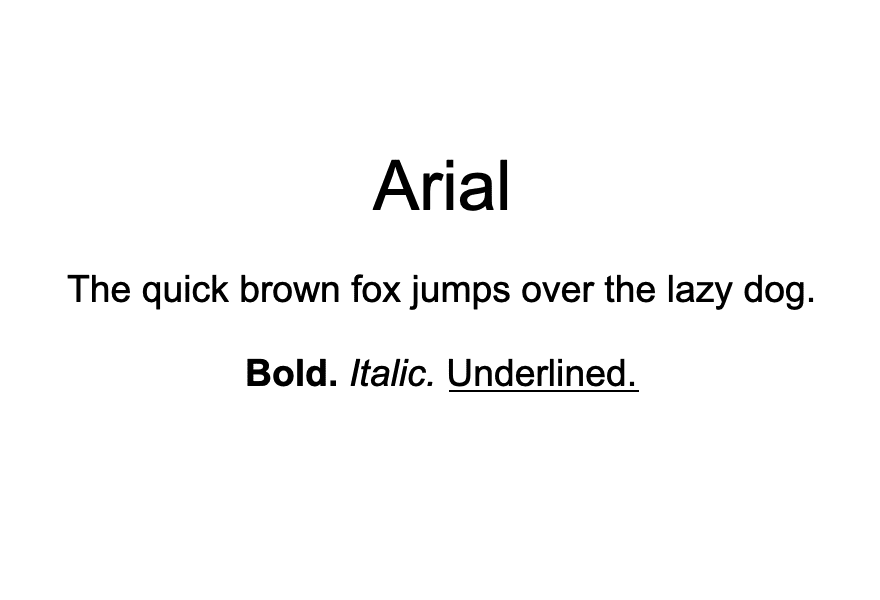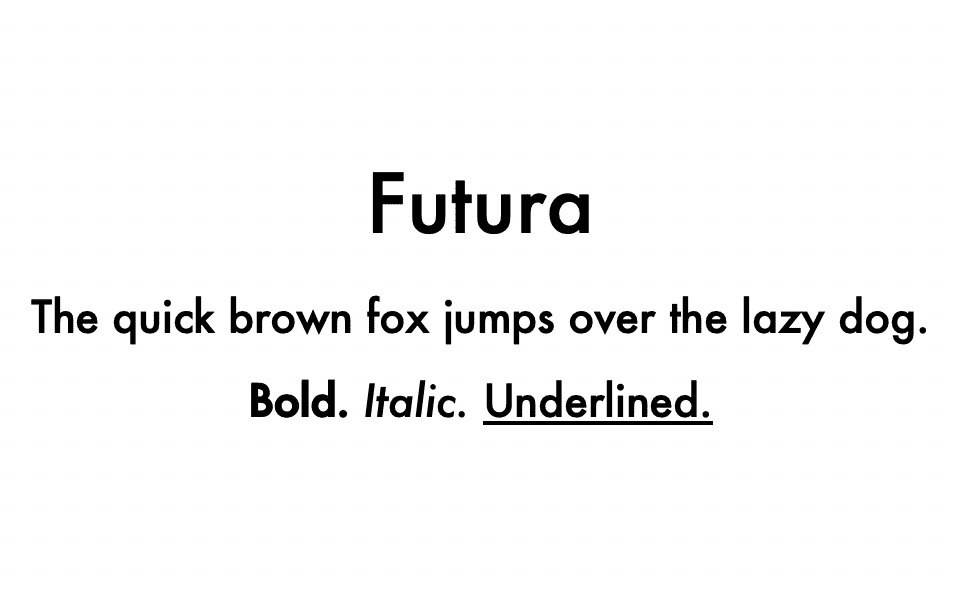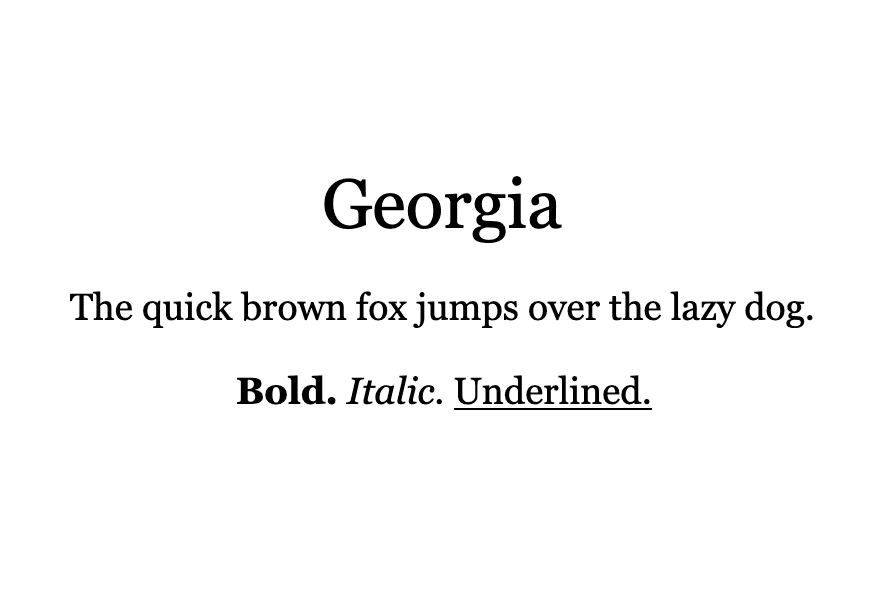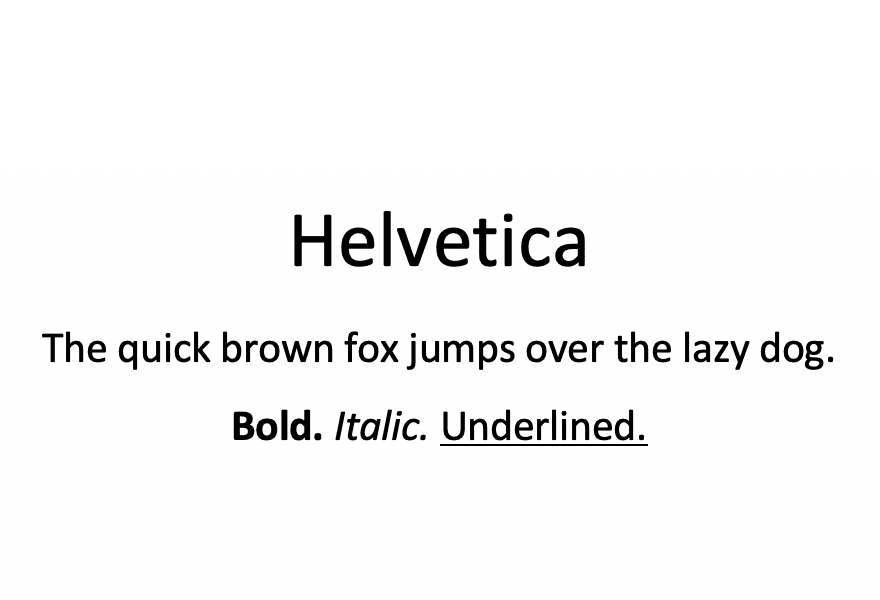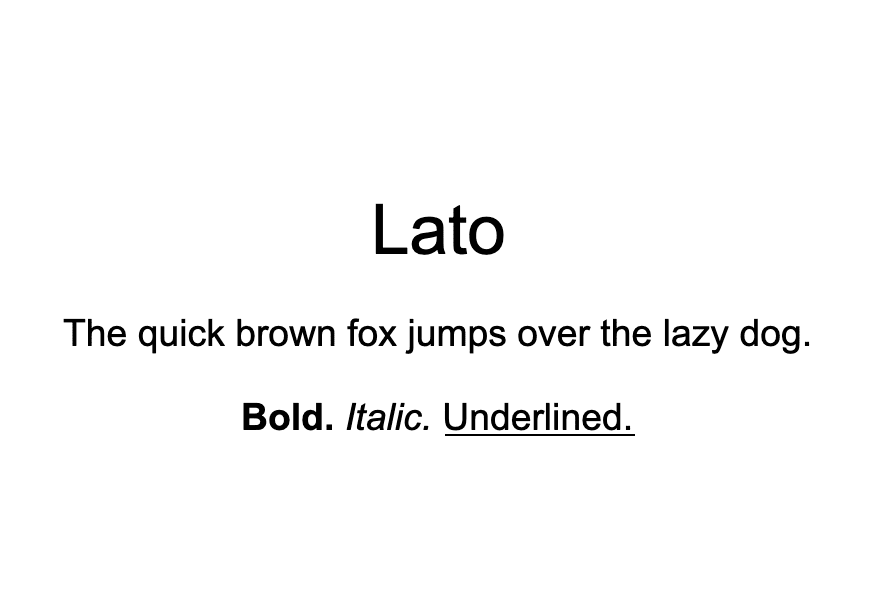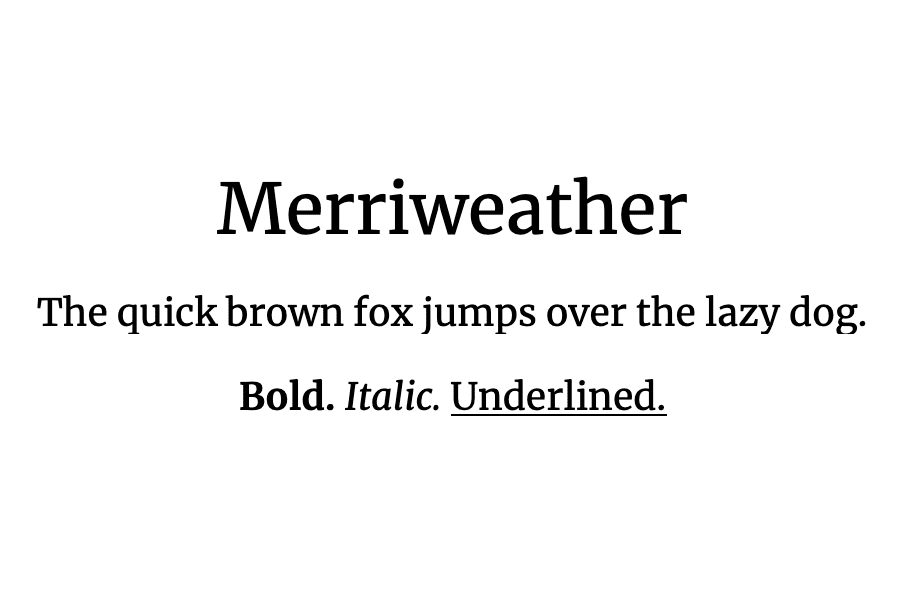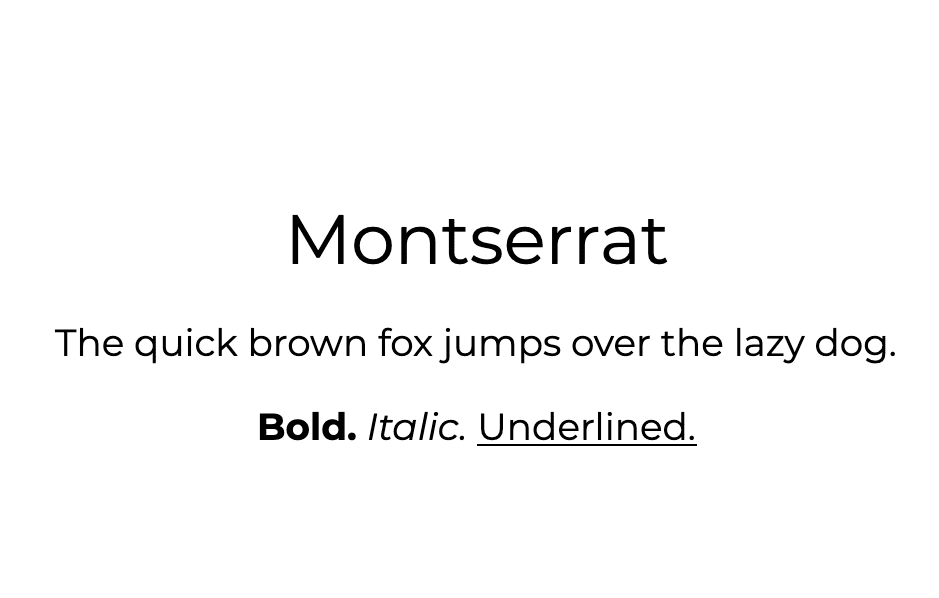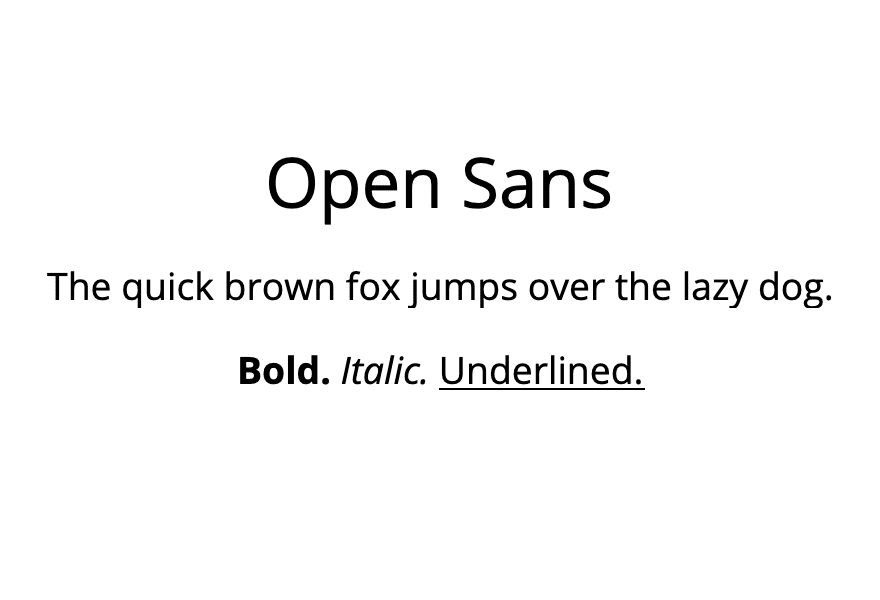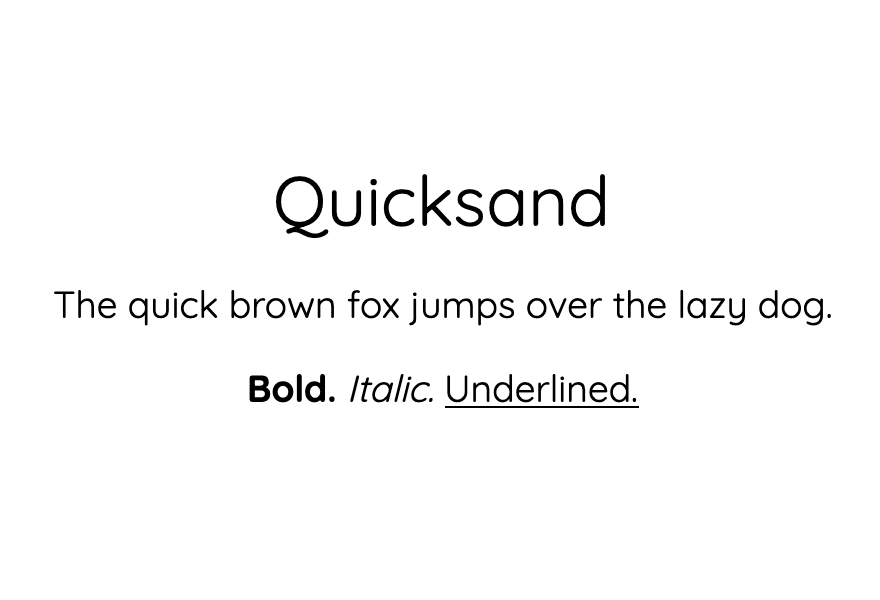
What Is the Easiest Font to Read?
We often forget that text – or more specifically, typeface – is an integral part of web design. In fact, your font choice can make or break your entire website. It doesn’t really matter how beautiful or easy to navigate your site is if visitors struggle to read its content.
This is why it’s smart to choose one of the easiest fonts to read for the majority of the text in your web design projects. In this post, we’ll talk about what makes a typeface legible and share ten popular options to consider for your next site.
Let’s jump in!
What Makes a Font Easy to Read?
There are several factors that come into play when determining how easy a font is to read. The three basic concerns are:
• Serifs. These are the small strokes or feet that come off of the main lines of each character in certain typefaces. You can refer to the “elegant” in our logo for an example. It’s generally accepted that sans-serif fonts (fonts without serifs, like the one you’re reading now) are easier to read on screens. However, as you’ll see in our list below, there are some exceptions to this rule.
• Spacing. More specifically, kerning, tracking, and leading. These terms refer to how close individual characters, words, and lines are to one another in a font. If the spacing is too tight, the characters become difficult to discern. If it’s too spread out, it can be hard to put the right letters together to form words.
• Font size. What size you set your text to could make a readable font hard to make out. Additionally, there are some fonts that adapt better to smaller sizes than others.
In addition to these guiding factors, there are a couple of other principles to keep in mind. You should generally avoid script and decorative fonts, except maybe for titles or other special text. It’s strongly recommended never to use them for body text. These typefaces tend to become harder to read at smaller sizes and when used for long blocks of text.
Additionally, keep your font’s color in mind. It’s important for your text and background to have enough contrast to make it easier for color blind and visually impaired users to make the words out. However, it’s also widely accepted that ‘reversed’ type (light-colored text on a dark background) is more difficult for everyone to read.
What Is the Easiest Font to Read? (10 Top Options)
Our list of the most readable fonts includes a variety of styles suitable for different use cases in web design. Some of these typefaces may be immediately familiar to you, as they’ve been popular for years. Others are newer and feature elements specifically chosen to meet the needs of modern digital readers.
Let’s start with some old favorites.
1. Arial
An example of the Arial font.
Arial is the standard font for many word processors, such as Microsoft Word and Google Docs. It’s a clean, contemporary, sans-serif typeface that works extremely well for body text.
Due to its popularity and familiarity, Arial easily adapts to just about any style. It’s truly timeless. Another perk of it being so widespread is that you likely won’t have trouble accessing it for use in your designs.
2. Helvetica
An example of the Helvetica font.
Another old-school sans-serif typeface you may want to consider is Helvetica. It’s unobtrusive, providing easy-to-read body text that won’t detract from the other aspects of your site’s design.
In fact, this font was purposefully designed to be lacking in personality. Although it’s one of the most popular typefaces in the world, it’s also highly contentious. Designers tend to love it or hate it.
3. Georgia
An example of the Georgia font.
One of the few serif fonts on our list is Georgia. This typeface stands out for it’s classy, ‘old-timey’ feel that’s perfect if you want to inject a little character into your site design.
Georgia pairs nicely with many sans-serif fonts for use in headings and titles. This is an excellent solution if you like the look of a serif font but want to make sure smaller text remains clean and easy to read.
That said, Georgia has been optimized for readability on screens of all sizes. If you’re in love with this charming typeface, don’t be afraid to experiment with it as a body text font.
4. Merriweather
An example of the Merriweather font.
Another option for designers who aren’t impressed with sans-serif fonts is Merriweather. This Google font features slightly condensed letters that leave plenty of space between characters for on-screen legibility. It does its job so well that long-time WordPress users will remember it being used in previous default themes.
Merriweather pairs nicely with several other fonts on this list, such as Montserrat and Open Sans. As such, use it as a bold statement type in your headings, then let a simpler font take the reins in your body text.
5. Montserrat
An example of the Montserrat font.
Montserrat has its origins in urban signage. In 2017 it was redrawn with a lighter weight to make it easier to read when used in long blocks of text.
If you love the clean lines of Arial and Helvetica but want a typeface with a bit more intrigue, Montserrat is worth considering. It’s perfect for blogs looking to introduce a bit more personality while minimizing eye strain during long reads.
6. Futura
An example of the Futura font.
Another popular Helvetica alternative is Futura, which brings an edgy, modern feel to your text. It’s meticulously geometric and manages to convey a lot of feeling without extra flourishes.
Futura is perfect for startups or any brand that wants to appear forward-thinking and innovative. You can pair it with a lighter sans-serif font to create attention-grabbing headings or use it as a no-frills body typeface. It’s also popular as a logotype.
7. Open Sans
An example of the Open Sans font.
The ‘open’ in this font’s name refers to the negative space in many of its round letter forms. However, many people feel this feature gives the type a friendly or ‘open’ feel as well, making for a welcoming style and tone.
Open Sans is an ideal body text font and pairs nicely with some of the stronger personalities on this list, such as Merriweather or Futura. It’s also been optimized for legibility on all devices, making it an excellent choice if you have a lot of long-form content and expect a large volume of mobile users.
8. Lato
An example of the Lato font.
Originally designed for a corporate client, Lato is the perfect subtle typeface for your business site. Sleek and serious, this font looks professional without coming across as too stuffy.
To dress your design up a bit, use Lato for your site’s body text and pair it with a serif font for your headings and titles. This will get the job done and keep your blog posts or product descriptions readable while still letting your brand identity shine through.
9. Tisa
An example of the Tisa font.
Tisa is a newer font popular among graphic and web designers. Although it features distinct serifs, its careful spacing keeps text readable even on smaller screens.
This font is highly adaptable and can work well in any context. It’s ideal if you’re looking for a serif that isn’t quite as forward as Georgia or Merriweather.
10. Quicksand
An example of the Quicksand font.
Our last pick brings a quirky personality as well as mobile optimization to the table. Quicksand was designed in 2008 as a display font for mobile devices, but has since become popular in many other use cases as well.
Its clear spacing and geometric forms make Quicksand legible even as small sizes. It plays nicely with flashy serif fonts such as Merriweather as well as solid sans-serifs such as Futura, giving you a lot of flexibility when pairing it with other typefaces.
Conclusion
Choosing the right fonts for your web design projects is crucial. Understanding which typefaces are the easiest to read can give you a leg up in this area and help you ensure your web content is legible for future users.
In this article, we’ve took a look at ten of the easiest to read fonts for web content. Merriweather and Futura are favorites for headings and titles, while a more subtle choice such as Quicksand or Open Sans might be preferable for body text.
Do you have any questions about choosing a readable font for your website? Let us known in the comments section below!
Article image by Oberon / Shutterstock.com
Divi
Want To Build Better WordPress Websites? Start Here! 👇
Take the first step towards a better website.
Get Started
Divi
Premade Layouts
Check Out These Related Posts
How To Create An Off Canvas Services Popup In Divi 5
Posted on February 16, 2026 in Design
Off canvas menus appear everywhere on the web, but building one that works smoothly on desktop often means fighting with custom CSS or patching together mega-menu workarounds. Divi 5 handles this differently with Canvases and Interactions. We’ll build a global off canvas services menu...
View Full Post
22 Comments
1. Arial is the best font to use as it default font too, also plays an important role as we see in point of SEO, as seo is depends on user experience so must use Arial only.
2. I think this post wasn’t researched at all. Arial, Really?
You didn’t even mention Lexend, which has been co-developed by Google and Thomas Jockin to be the easiest font to read (They did many scientific studies with it as well)
• Hi there – thanks for bringing Lexend to our attention! Appreciate the suggestion.
• You’re welcome Will 🙂
3. Nice list, however, Arial font in the list could have been avoided. I was also looking for recommendations on ideal font-size and font-weight, especially for mobile devices.
Thanks for an interesting article. I tried different fonts but finally settled with Poppins on my blog.
• Thanks, Deepak! The general consensus from what I’ve seen is that 16px is the minimum font size you should use for mobile. There’s not as much information out there on font weight, but I would avoid lighter options and stick with regular (normal) or maybe medium or demi-bold.
Appreciate the recommendation as well.
4. Roboto font is also easy to load WordPress, I think this font also Update in your post.
• Appreciate the recommendation, Prasad!
5. The image for Helvetica is incorrect as well as the example image for Lato … they are both different fonts, but certainly NOT the font you indicated. Hope you can fix that.
• I noticed that too and didn’t want to comment if someone else comment about it. Glad I’m not the only person that noticed 🙂
• Thanks, Rob, we’re working on this!
6. Hi there. Your font size is too small for reading mobile device. Please increase the size if it’s possible.
• Hi Hossein. I personally don’t have any say over Elegant Themes’ web design, so there’s not really anything I can do for you here. I do know that the editorial team reads comments, though, so your concerns should be noted.
7. I always understood that beauty is in the eye of the beholder. For me, and I am therefore the beholder, I really like Montserrat and although not featured here I’m also fond of Raleway which I use a lot in my web designs.
Many thanks for this post Will – an interesting read.
• Thanks for the suggestion, Brian! Glad you liked the post.
• Any thoughts on OpenDyslexic and its variations (Alto, Mono, 1, 2, 3)? I’m asking out of curiosity, not for web design but for personal use. I’d like a font that reduces eye strain, that I can use in a Chrome extension to modify existing web pages. I know Comic Sans is a top choice for readability (not for style!) but I can’t stand it.
• I have heard from Dyslexic friends that it depends on what type of Dyslexia one has. About 50% (from my experience) say those fonts are really great, and 50% say that they don’t help. Worth a shot! There are Chrome/Browser extensions that replace fonts with those on every page load.
8. OMG ! Obviously this post is written by someone who knows NOTHING about typography.
Anyone who includes Arial would be laughed at. Futura is nothing even close to Helvetica, and quite the contrary it’s not a readable typeface, exactly because it’s too geometric and it’s discouraged from being used for any long passages of text. Merriweather is recommended generally for headlines not for long passages of text where readability is concerned. Lato image is wrong. Quicksand is a “display” font why is it even included in a readability list. Open Sans is a knock-off of Frutiger and its too default looking.
And why does underlined style has such significance? Are we going back to typewriter days?
This post is cringeworthy!
9. I don’t understand why Arial was included, as Arial is an ugly Helvetica knock-off. Microsoft was too cheap to license Helvetica, in contrast to Apple, who licensed Helvetica.
• Thanks for your input, Rob. I included Arial in this list because it has all the markers of a readable font and is widespread and an easy go-to for people who perhaps aren’t experienced designers, but want to make sure their web content is legible. For better or worse and despite its origins, it remains a popular font and I felt it warranted a spot in this post.